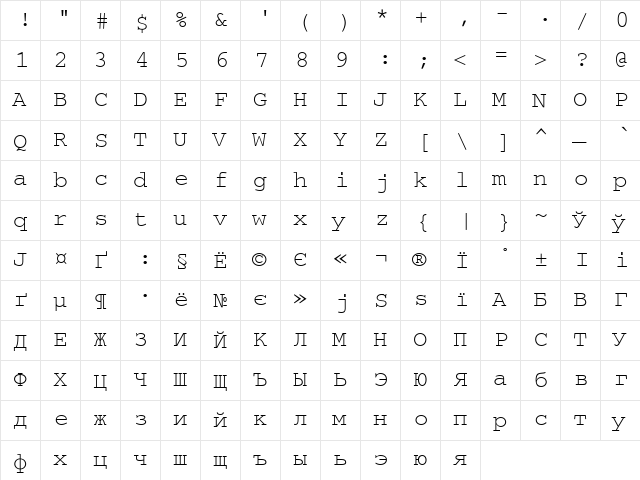
CourierCyrillic Regular Font Preview
CourierCyrillic Regular
Design Context for CourierCyrillic Typeface
CourierCyrillic uses fixed-width spacing throughout, giving it the structured, systematic character associated with coding environments and technical documentation.
A natural fit for code editors, technical documentation, developer-focused branding, and terminal-inspired UI.
Pro Tip: Pair CourierCyrillic with a proportional sans for UI contexts where code-style labels and regular body copy need to coexist.